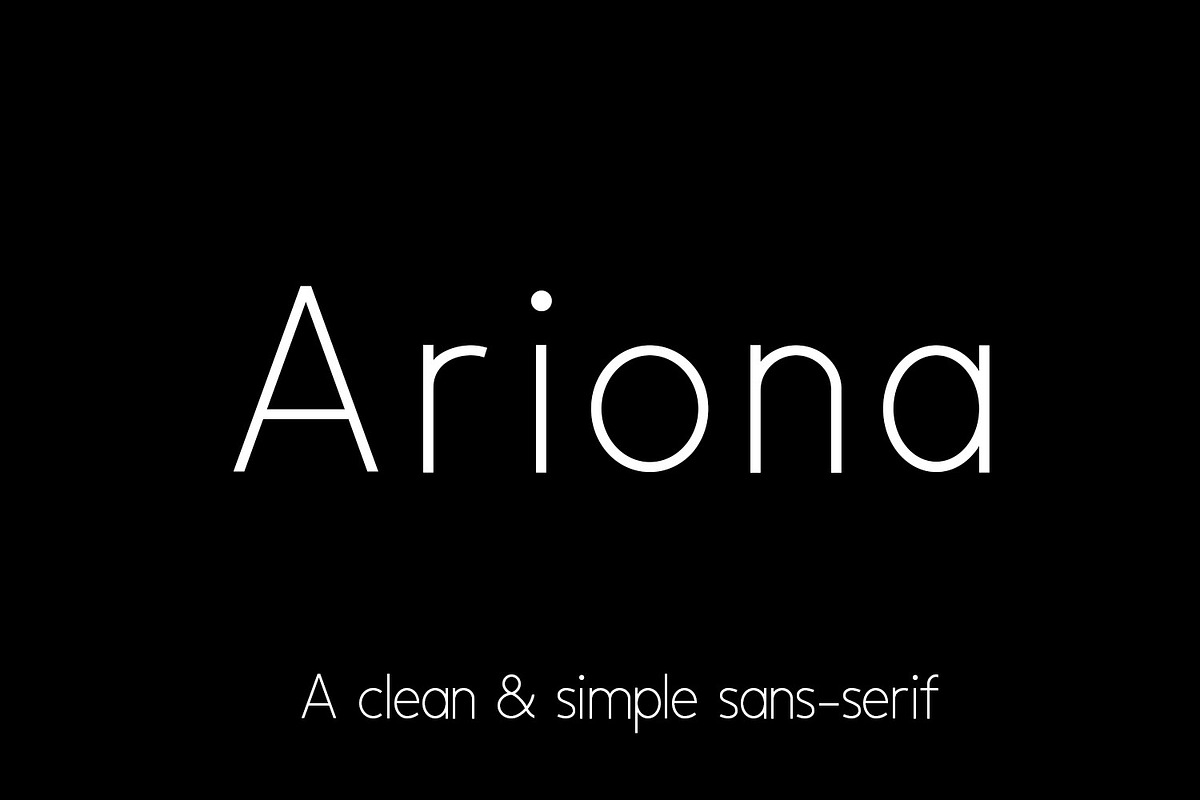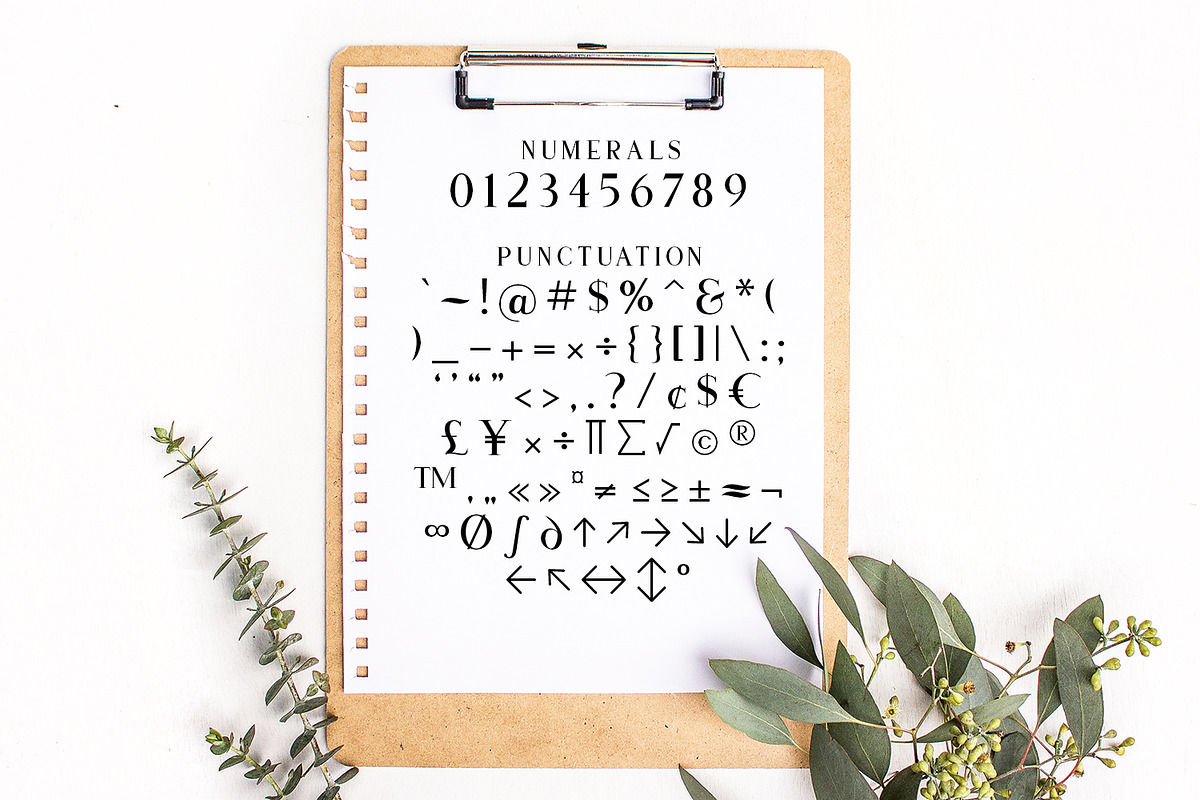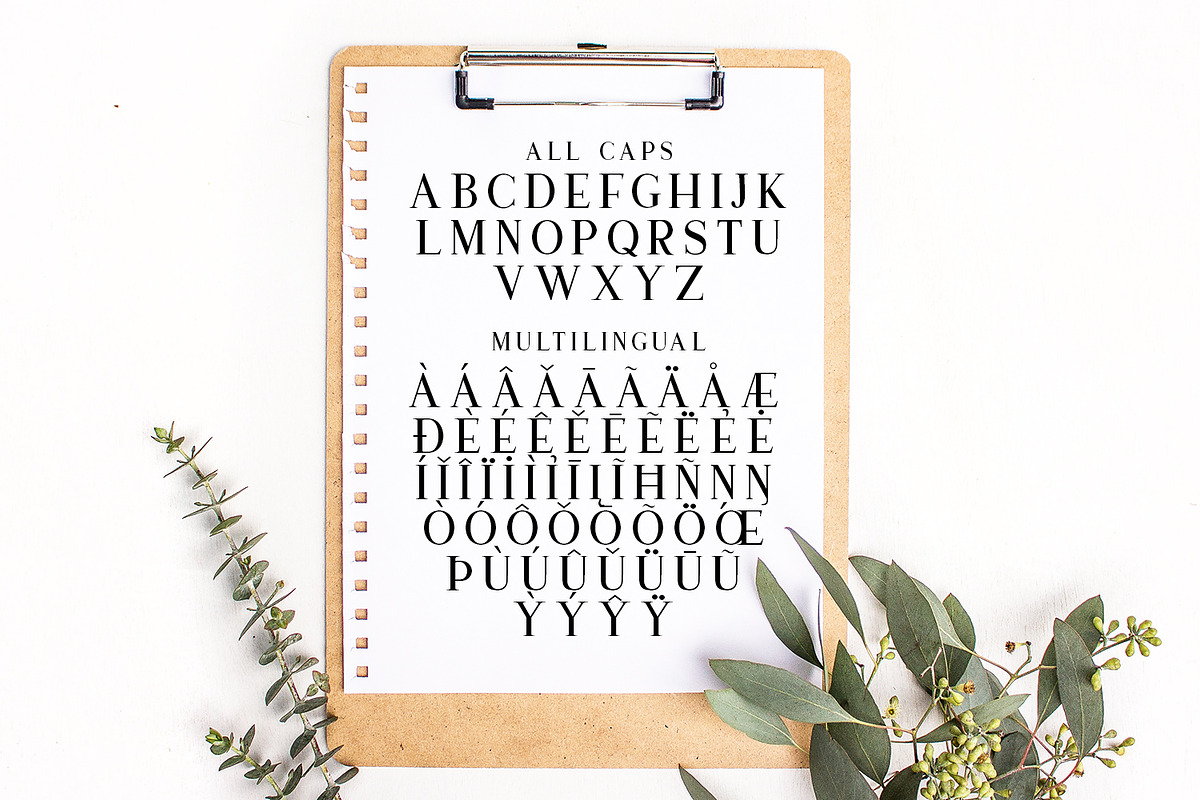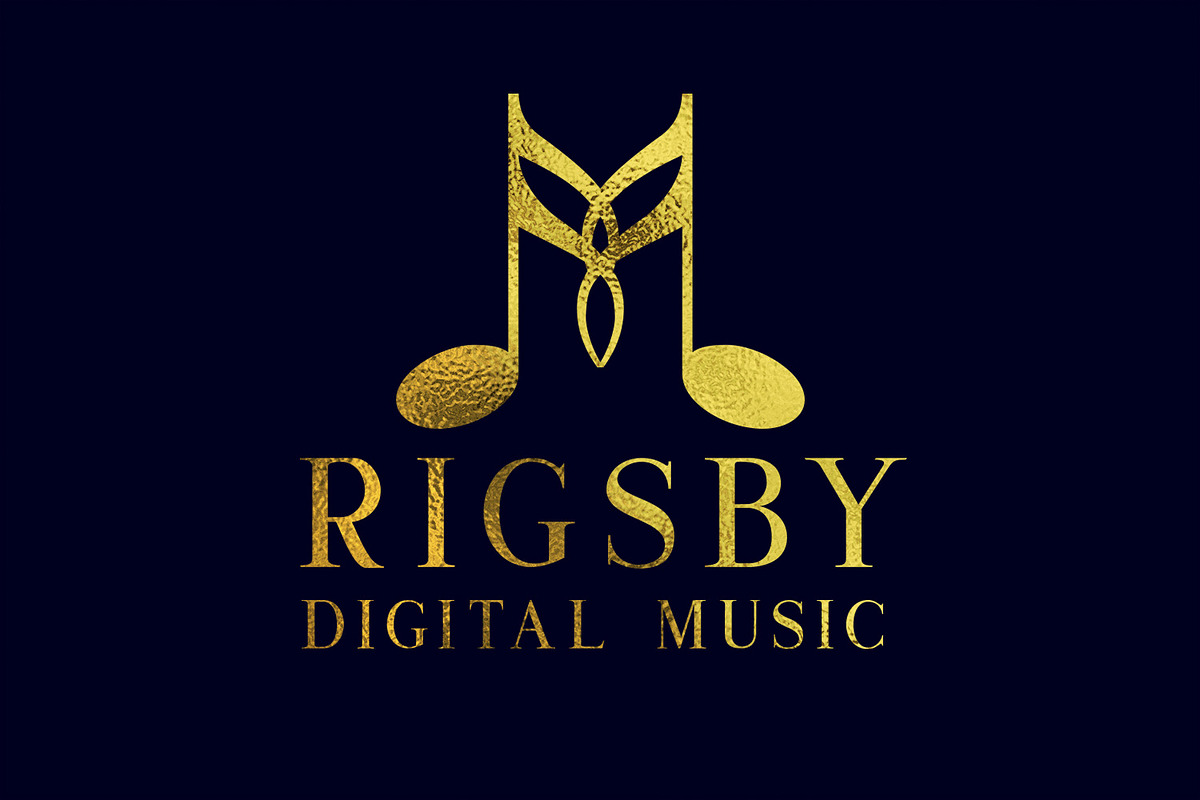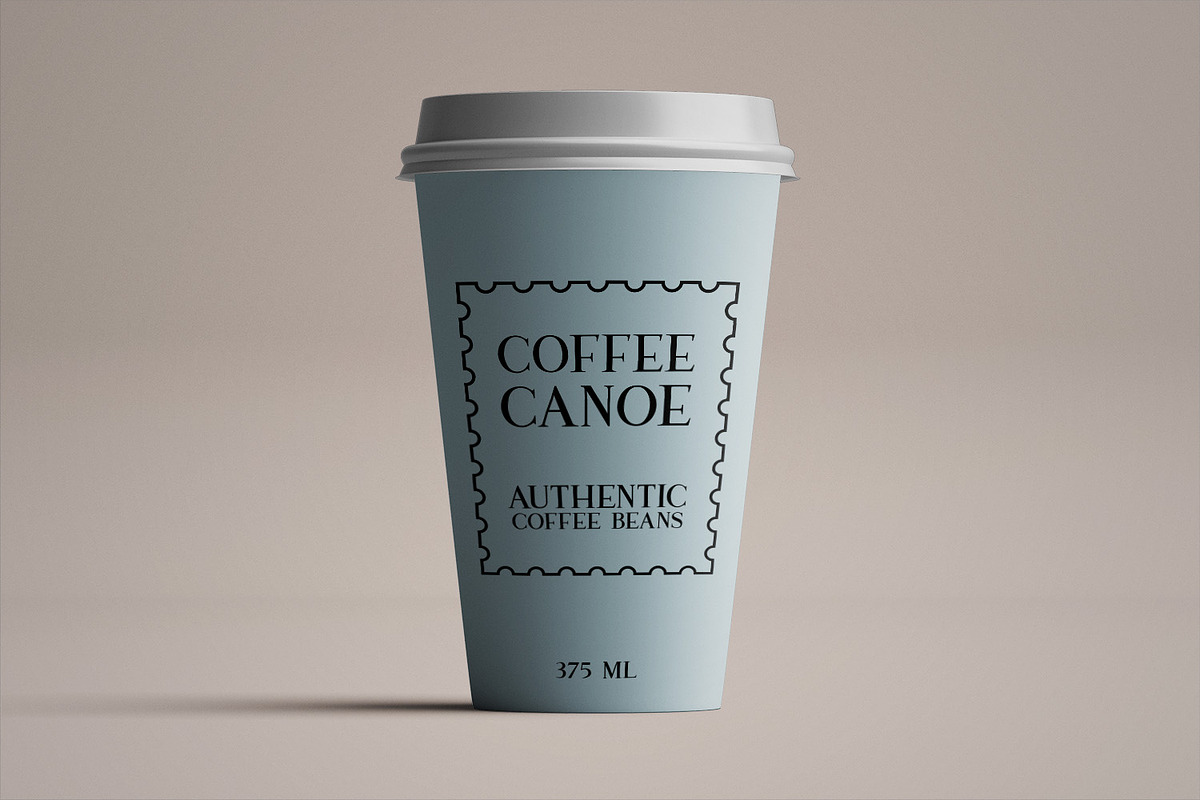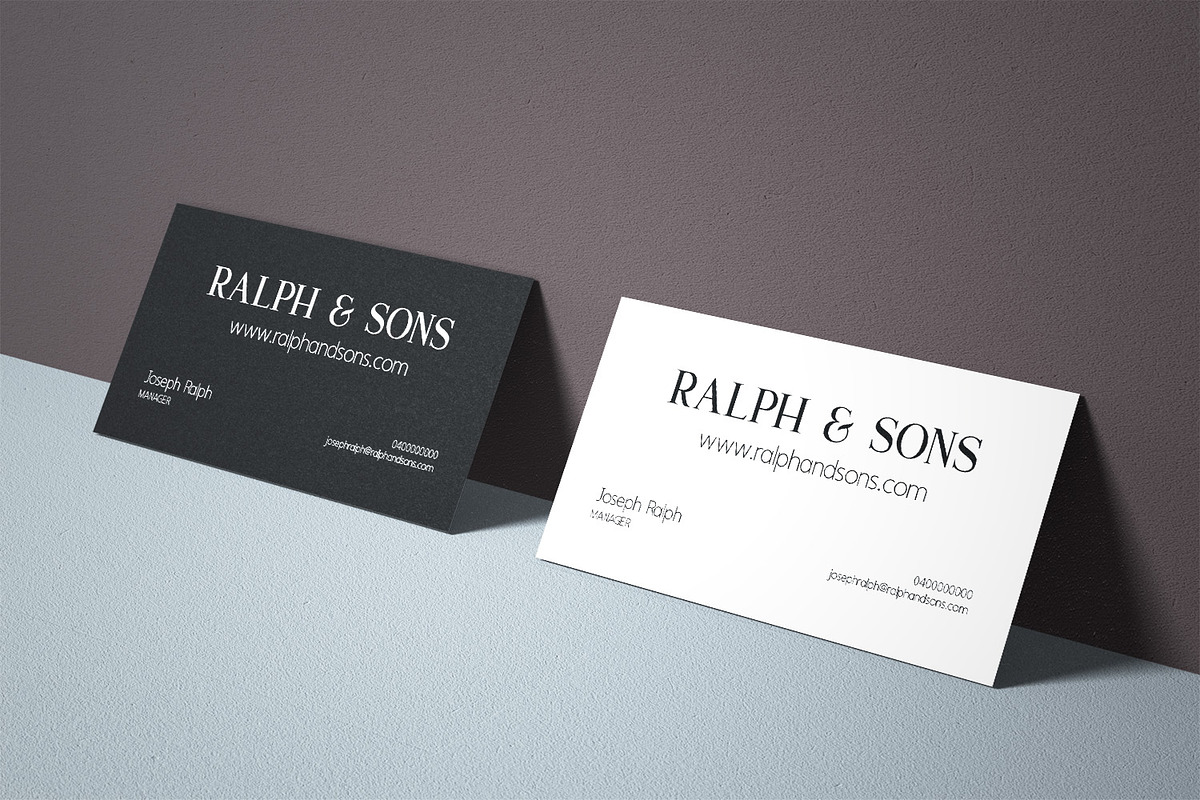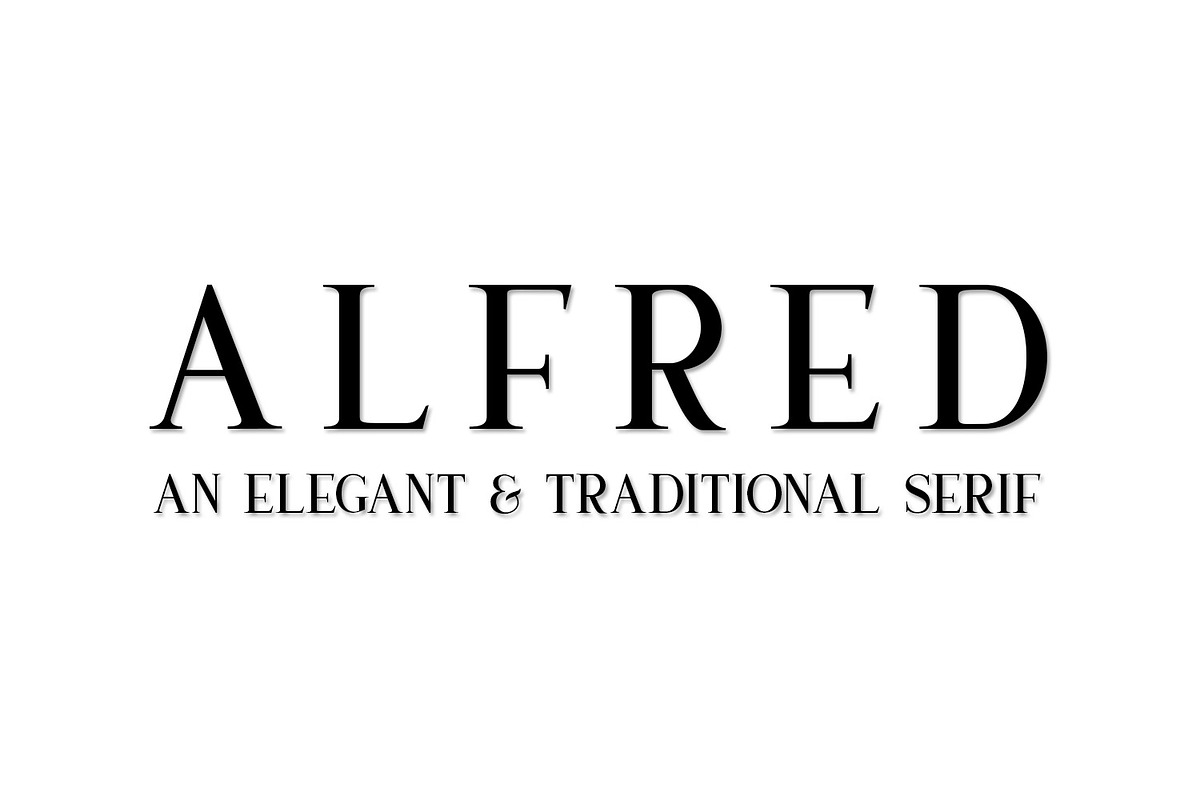
Traditional Mini Font Bundle
The Traditional Mini Font Bundle
This product is a small bundle of 4 traditional fonts, including 2 serif and 2 sans-serif fonts. Is your font collection filled to the brim with beautiful, swirly, script fonts? If you need new fonts to compliment those beautiful script fonts, or you just need a change of style, these traditional serif and sans-serif fonts might be just what your collection needs!
Each font includes multilingual support for most Latin languages
Use these fonts in branding, business cards, flyers, posters, invitations, in logos or even on clothing. All 4 of these fonts are very versatile!
- Ariona Regular
- Benjamin-Title Regular
- KH Alfred Regular
- KH Ravish Sans